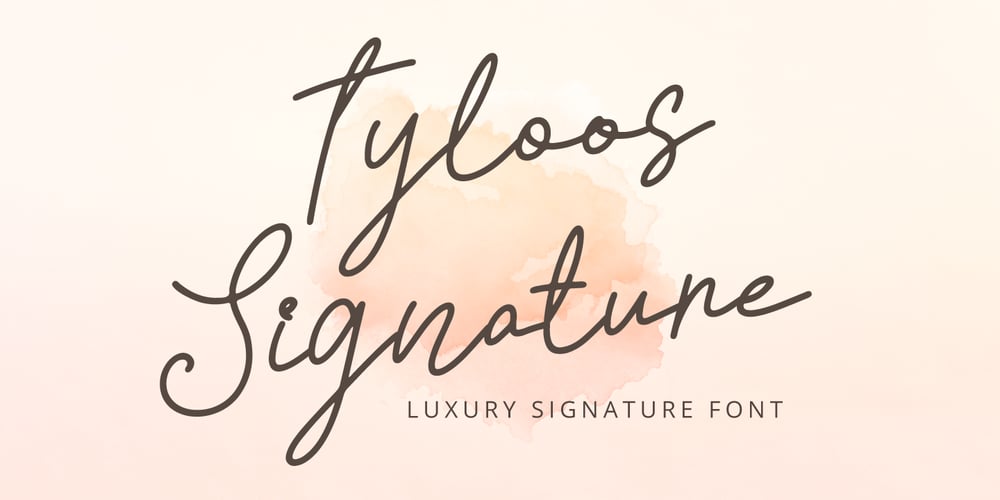
Tyloos Signature Font Family was designed by Fadli Ramadhan Iskandar and published by Attype Studio. Tyloos Signature contains 1 styles and family package options. Introducing Tyloos Signature – Inspired by handwritten font cursive, signature font word that perfect for any design project you have!Tyloos Signature is perfect for winter sale design, branding, logo, invitation, stationery, wedding, product packaging, merchandise, monogram, blog design, game titles, cute style design, Book/Cover Title, movie poster, youtube thumbnail and more.Features :- Tyloos Signature.otf- Uppercase & lowercase- numeral & punctuation- Ligatures- Multilingual Support —Hope you enjoy with our font!Attype Studio